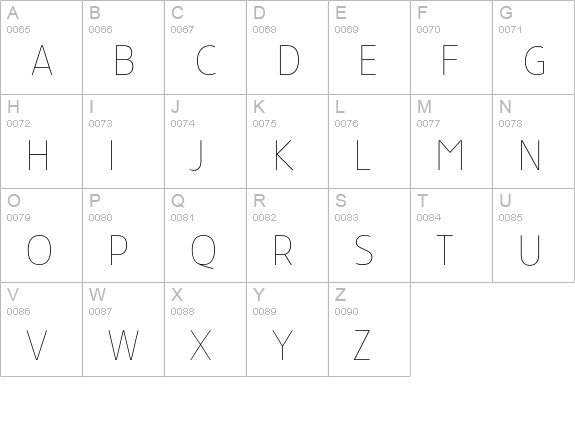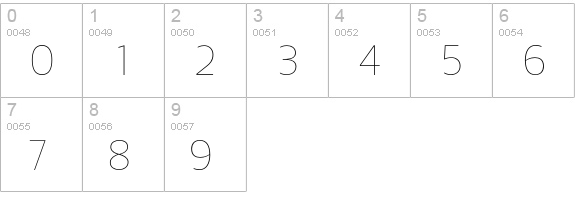
TFForever-Thin is a delicate, low-contrast variant in the TFForever typeface family \xE2\x80\x94 well suited to fashion editorial, minimal branding, and high-contrast display.
Introducing TFForever-Thin, a captivating font that effortlessly blends elegance with simplicity. This font is the epitome of modernity, with its sleek and slender letterforms that exude a sense of grace and sophistication. Its delicate strokes and refined curves make it perfect for a wide range of design projects, from branding and logo design to invitations and editorial layouts. TFForever-Thin is not only visually striking but also highly versatile, allowing you to create stunning typographic compositions that are sure to leave a lasting impression. Whether you're aiming for a minimalist aesthetic or a more refined and polished look, this font has got you covered. What's more, TFForever-Thin is available for free download exclusively at FontsMarket.com. Yes, you read that right – this exceptional font can be yours without spending a dime. With just a few clicks, you can enhance your design arsenal with a font that is not only visually captivating but also incredibly accessible. So, don't miss out on the opportunity to elevate your design projects with TFForever-Thin. Download it for free today at FontsMarket.com and let your creativity soar to new heights.